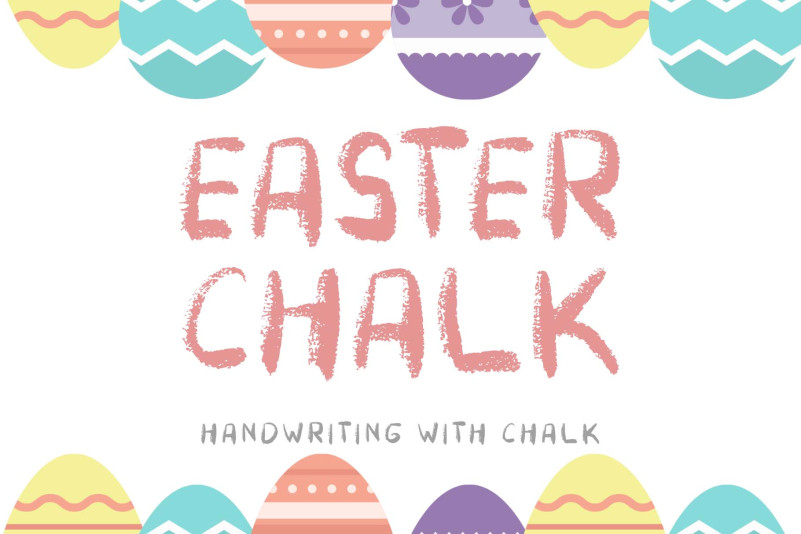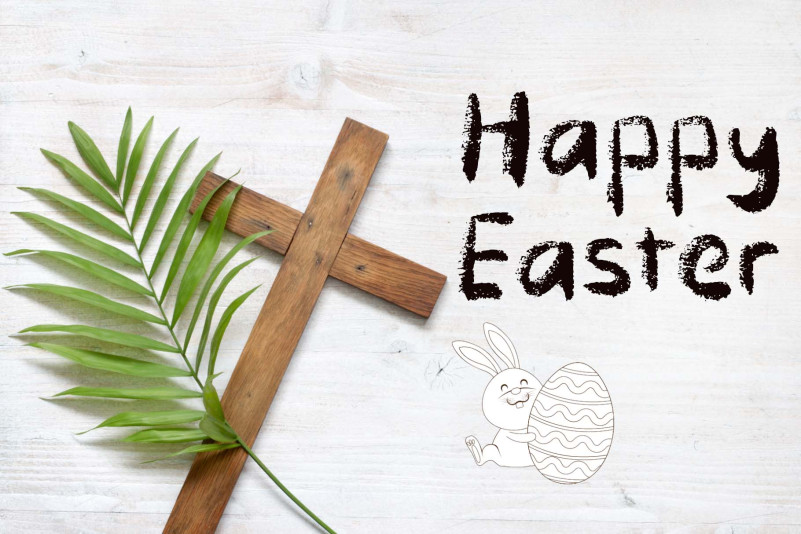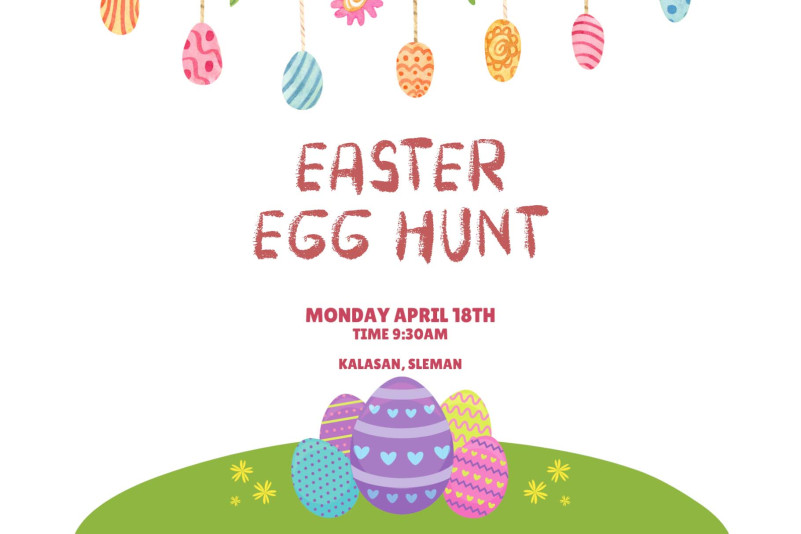
Easter Chalk Font
“Easter Chalk” is handwritten in chalk. This font is very easy to use because it has been specially designed. This font is equipped with uppercase, lowercase, numerals, punctuations, and multilingual support. It is suitable for Easter, summer, spring, back-to-school themes, and others.